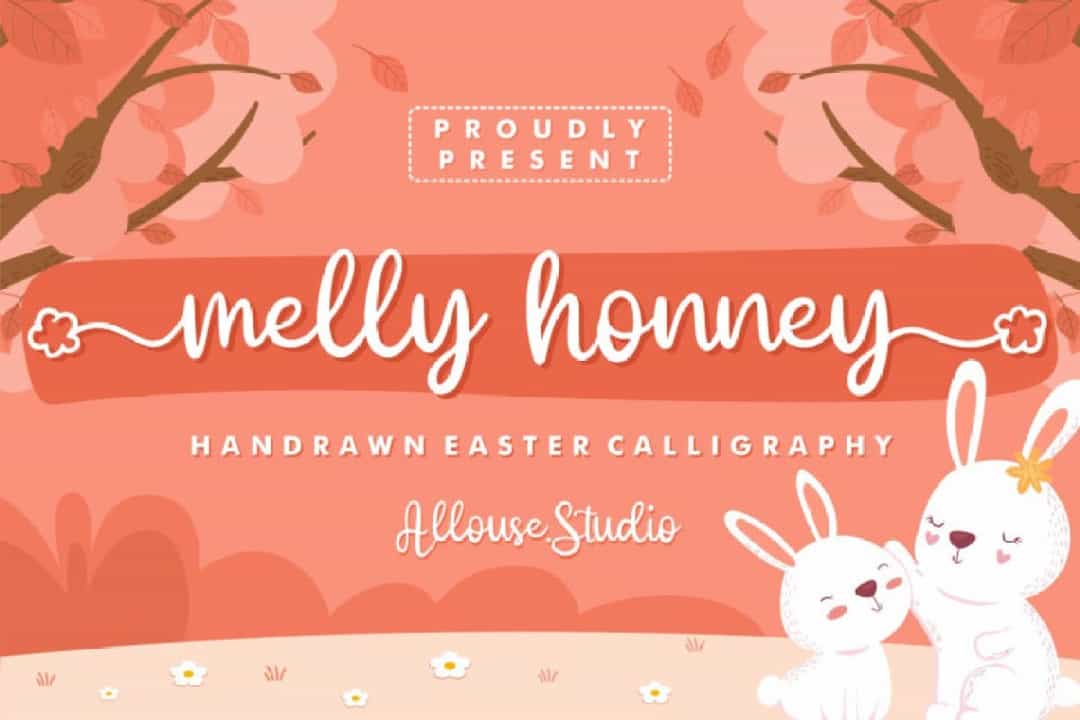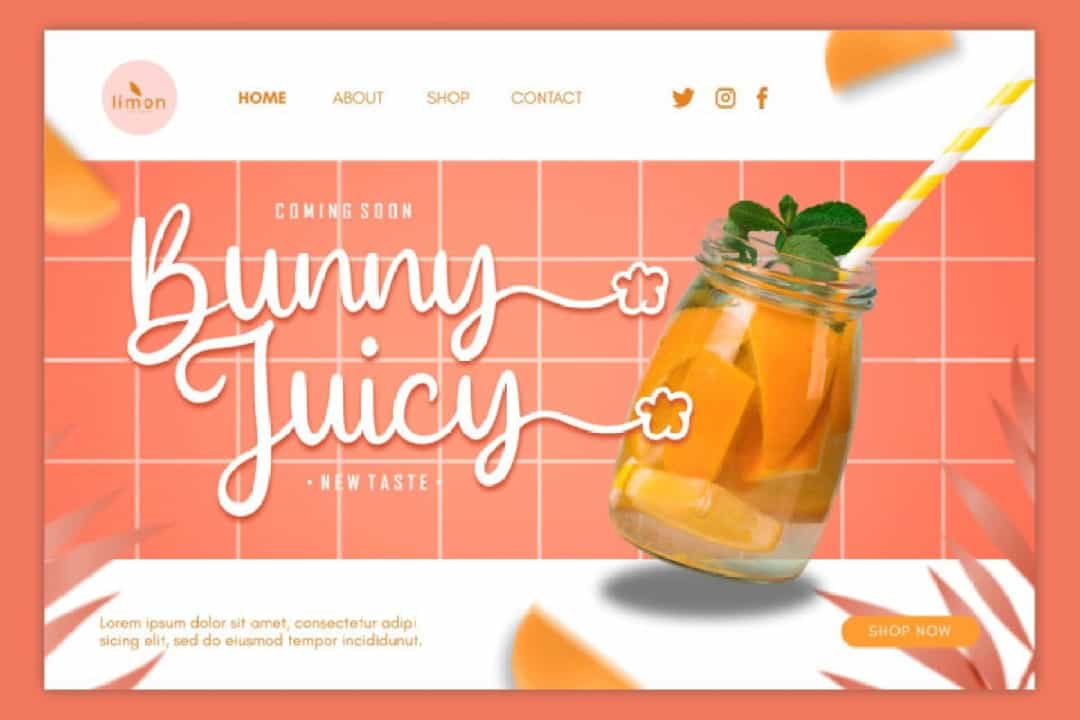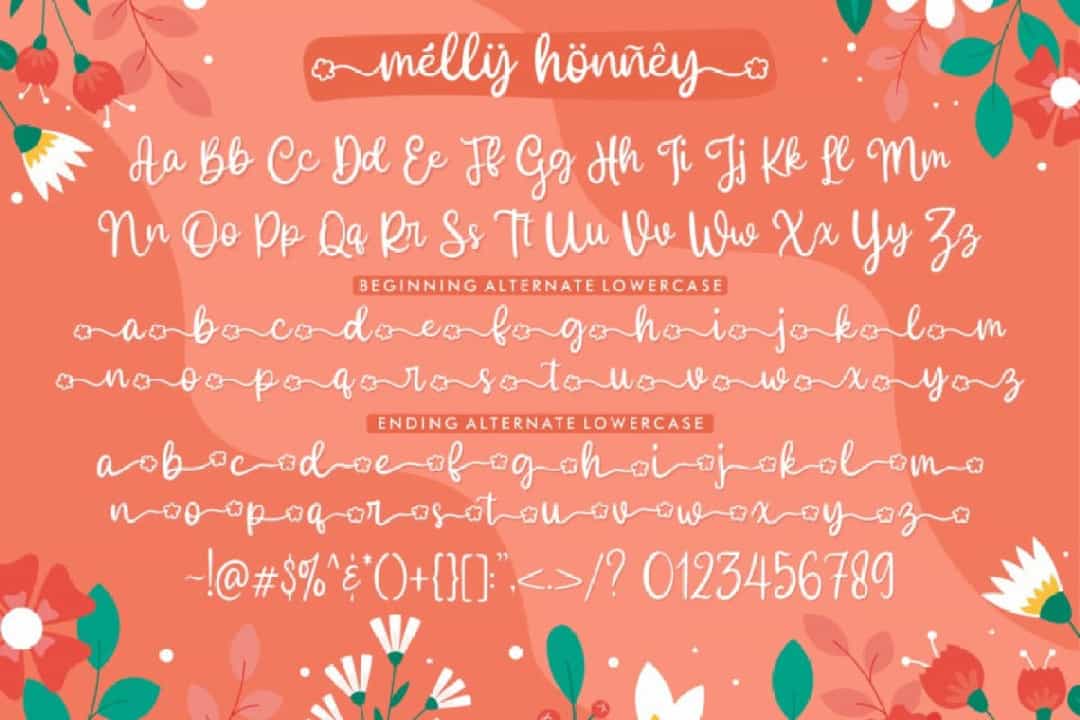
Melly Honney is an elegant and delicate handwritten calligraphy font featuring soft swashes. This style makes an impactful statement about anything from titles and letterheads, to stationery.